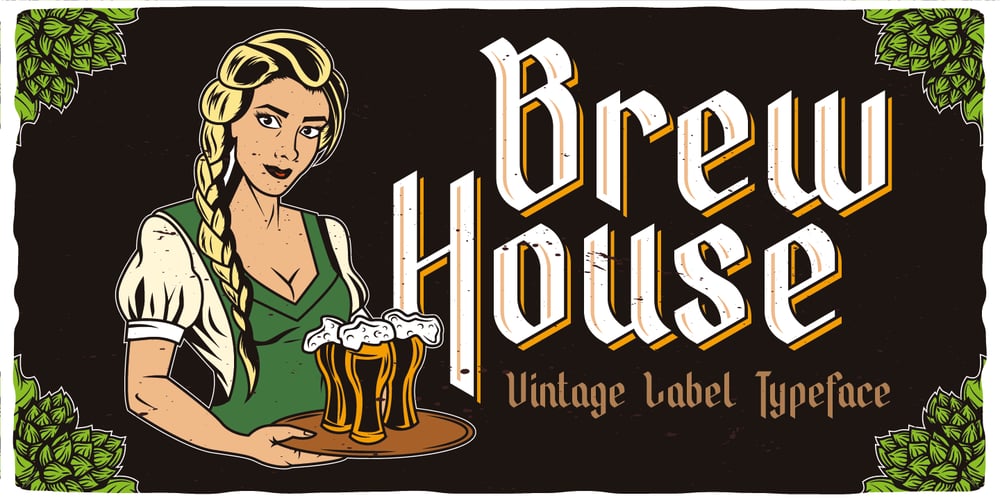
Brew House Font Family was designed by Oleg Voznyy and published by Vozzy. Brew House contains 5 styles and family package options. Introducing a vintage look label font named “Brew House”. All available characters you can see at the screenshot. This font have 5 basic styles – Regular, Full, Shadow, Light and Aged. This font will good viewed on any retro design like poster, t-shirt, label, logo etc.